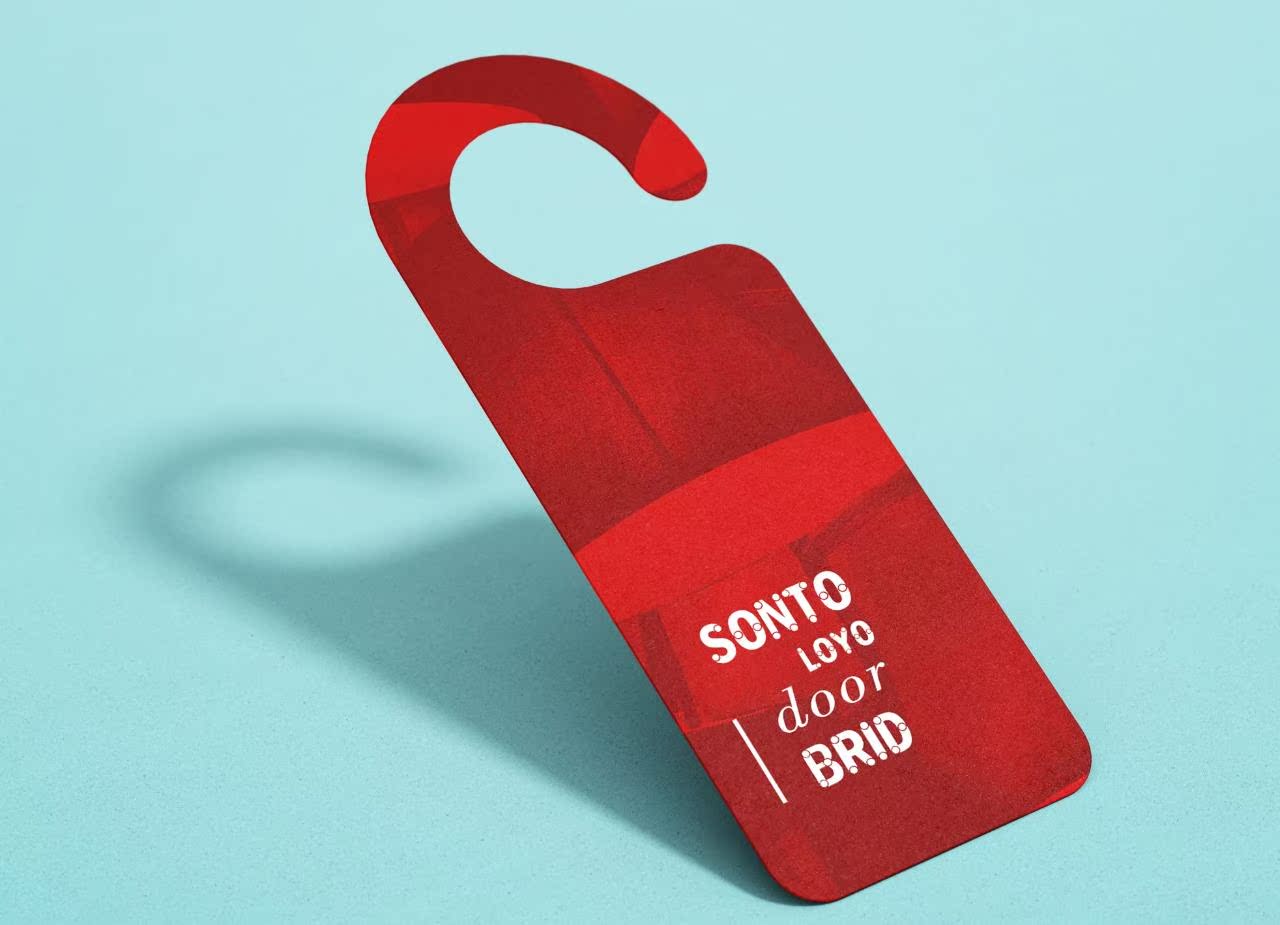
Pipefont,ThisFontIsInspiredByPipe.ThisFontCoisedTomakeLogos,writebooknames,productlabelnames,公司。Pipefont,ThisFontIsInspiredByPipe.ThisFontCoisedTomakeLogos,writebooknames,productlabelnames,公司。